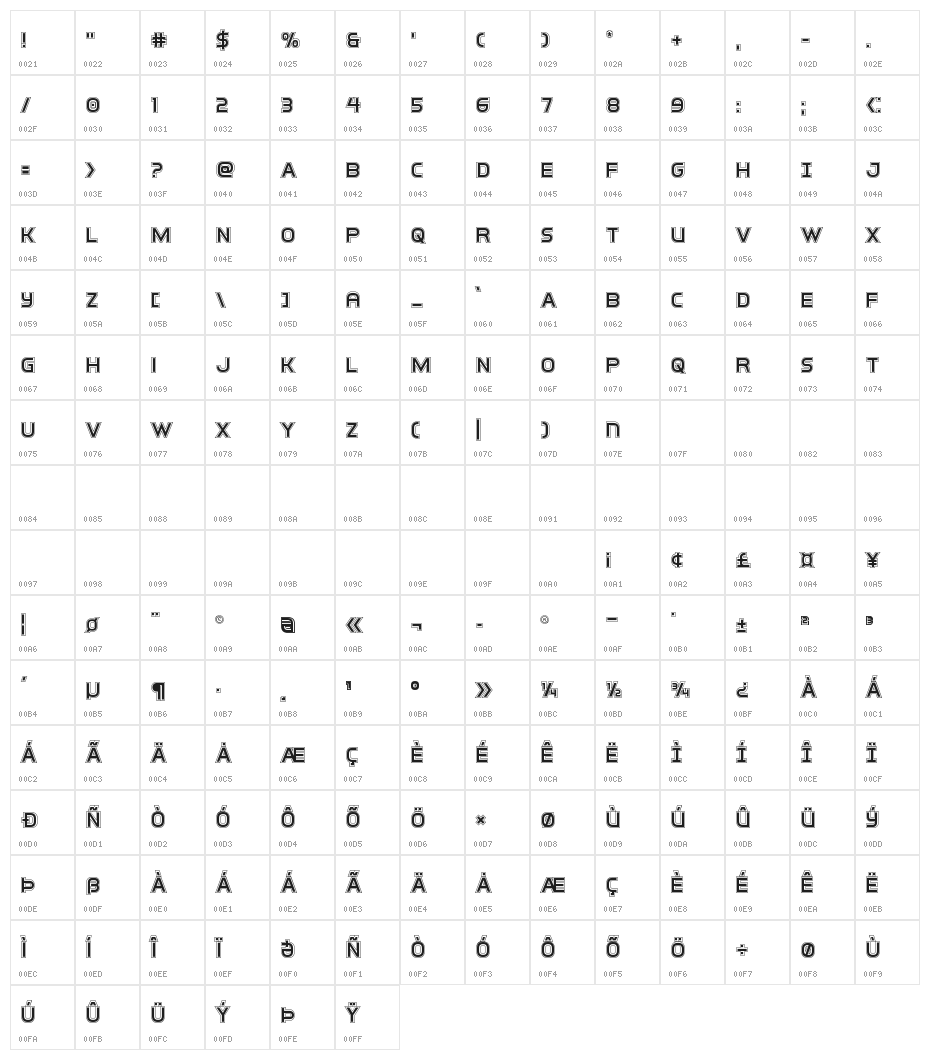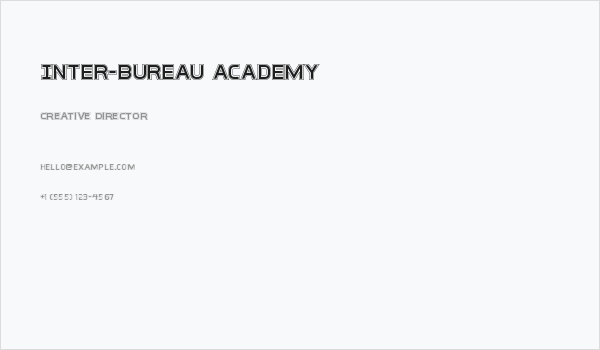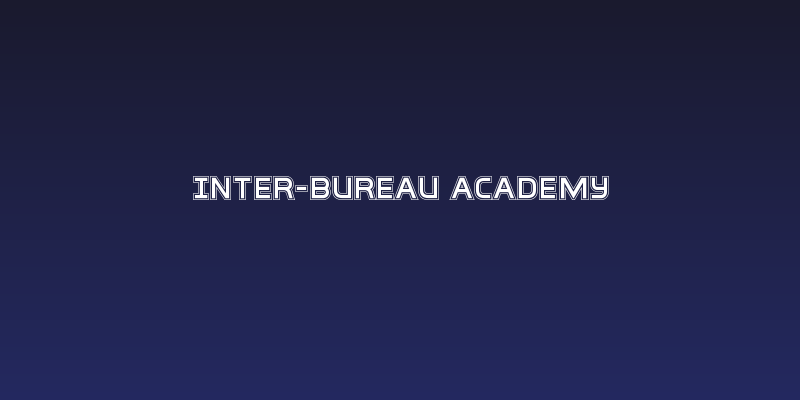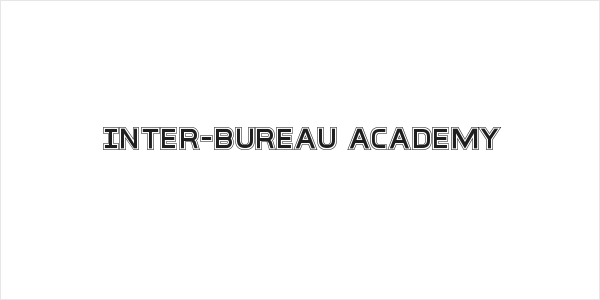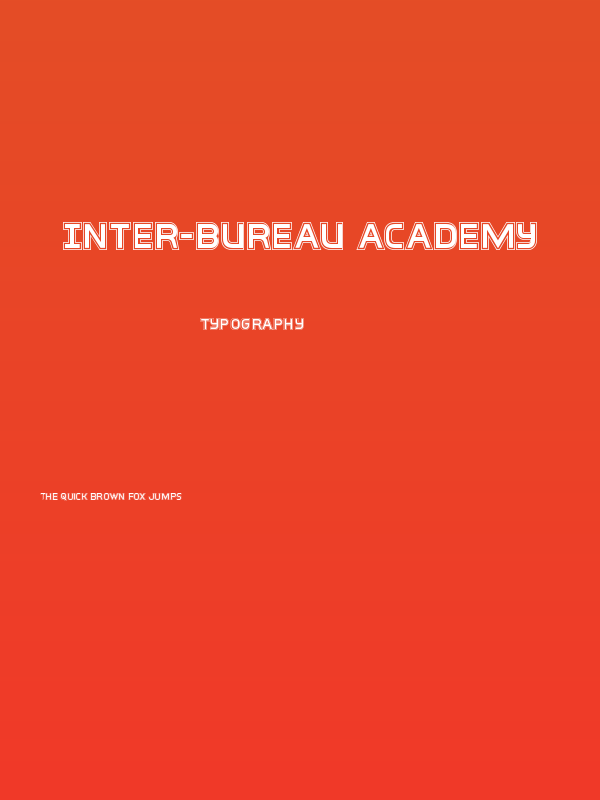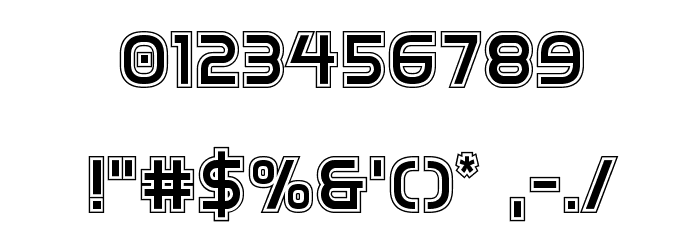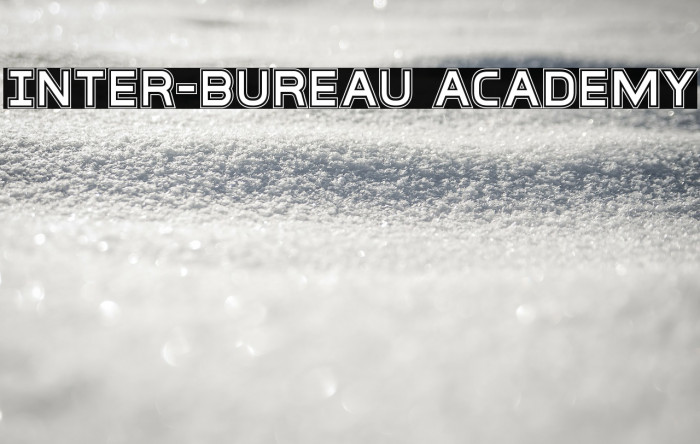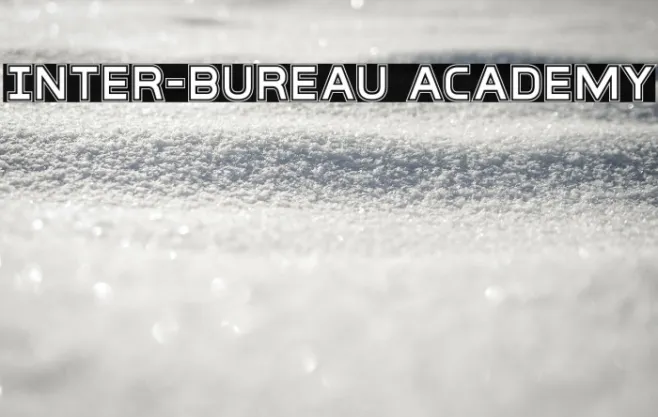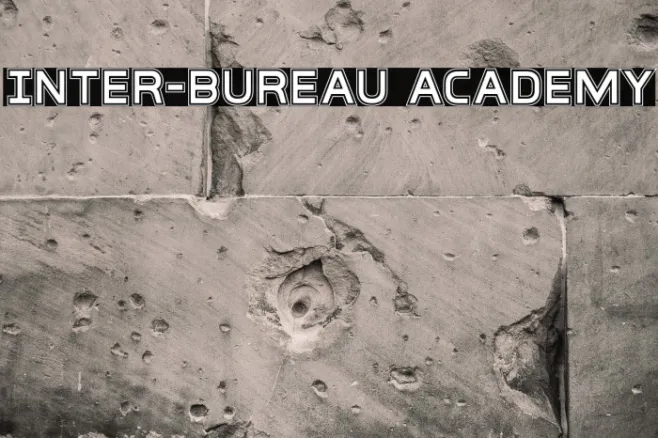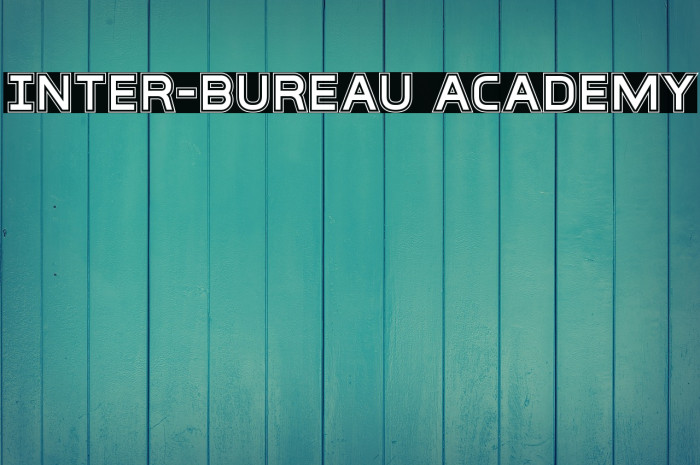
Inter-Bureau Academy Font
This font features a bold, geometric design with a distinct double-line outline that creates a striking visual effect. The uppercase letters are uniform in height, with sharp angles and clean lines that give it a modern and futuristic appearance. The lowercase letters maintain the same geometric style, ensuring consistency throughout the typeface. Numbers are equally bold and structured, making them highly legible. Special characters are designed to match the overall aesthetic, providing a cohesive look across all glyphs. The font's unique outline style makes it stand out, ideal for projects that require a strong visual impact.
| Proposed Projects | Ideal for branding, posters, headlines, and any design project that requires a bold, modern look. |